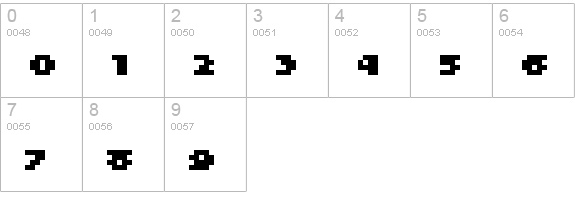
Kroeger 04_66 font is a sleek and modern typeface that exudes elegance and sophistication. Its clean lines and bold strokes make it perfect for a wide range of design projects, from branding to editorial layouts. The font's unique style adds a touch of class and professionalism to any design it is used in. The best part about Kroeger 04_66 font is that it is completely free to download at FontsMarket.com. This means that you can access this beautiful font without any cost, making it a valuable addition to your font collection. Whether you're a graphic designer, a web developer, or a creative enthusiast, this font is sure to elevate your projects and make them stand out. With its versatility and timeless appeal, Kroeger 04_66 font is a must-have for anyone looking to add a touch of sophistication to their designs. Download it for free today and see the difference it can make in your creative endeavors.